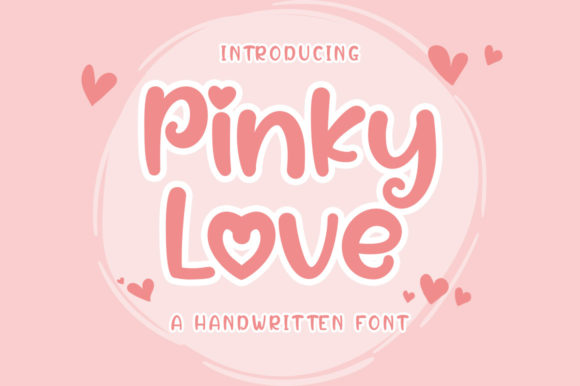
Introducing Pinky Love Font, a playful and enchanting handwritten script that will captivate your heart. Inspired by the joy of love, this font exudes a charming personality that adds a touch of warmth and elegance to diverse design projects.
Embark on a creative journey as you explore the boundless possibilities of Pinky Love Font. Its meticulously crafted characters ooze with charm, flowing effortlessly to create a visual masterpiece. Each letterform dances across the page, resembling a heartfelt, handwritten note that sparks a sense of nostalgia and romance.
With Pinky Love Font as your creative compass, you'll discover a world of endless possibilities. Envision wedding invitations that radiate love, heartfelt thank-you cards that express gratitude, and greeting cards that carry heartfelt sentiments. Logos and business cards adorned with Pinky Love Font will leave a lasting impression, reflecting a brand's unique personality and charm.
Unleash your creativity and let Pinky Love Font guide you in crafting designs that evoke emotion and capture the essence of love. Its versatility knows no bounds, whether you're creating social media graphics, captivating blog posts, or eye-catching posters. The playful and whimsical nature of this font adds a touch of whimsy to any project, inviting your audience to connect with your message on a deeper level.
Pinky Love Font is more than just a font; it's an expression of your creative passion, a testament to the power of love. With its enchanting allure, this font will transform your designs into captivating works of art that resonate with your audience.
So, let your creativity bloom and embrace the magic of Pinky Love Font. Its charm and versatility will undoubtedly elevate your designs, leaving an unforgettable mark on the hearts of those who encounter them.